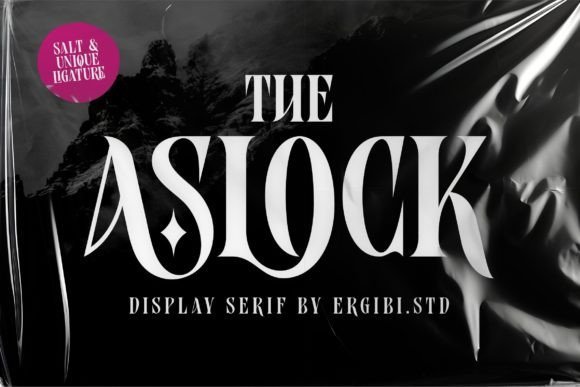
Introduction to Aslock Font
Aslock is an elegant and bold serif font.
Fall in love with its incredibly versatile style and use it to create gorgeous wedding invitations, beautiful stationary art, eye-catching social media posts, and much more .
Key Features of Aslock Font